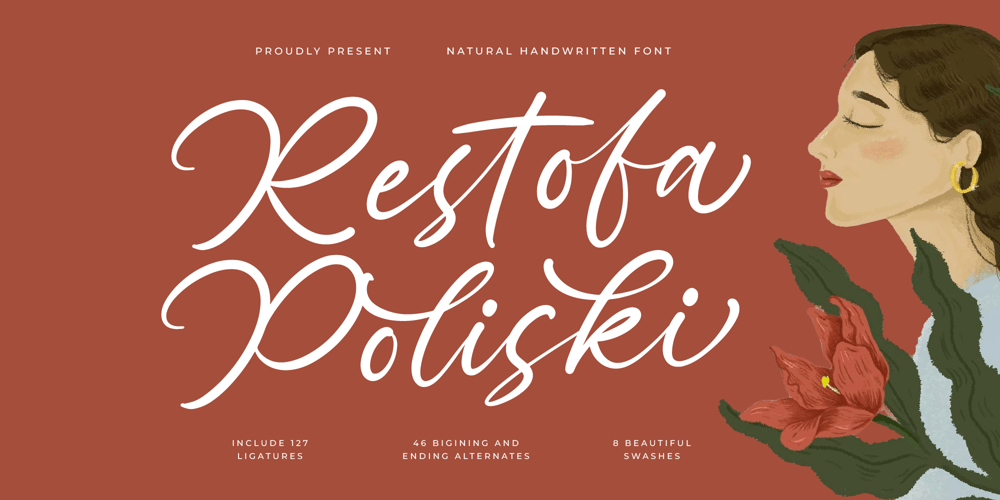
Restofa Poliski Font Family was designed by Heru Utama Putra and published by Stylishtype Studio. Restofa Poliski contains 2 styles and family package options. Restofa Poliski – Natural Handwritten Font , from Stylishtype , Suitable for any projects such as: logos, branding projects, homeware designs, product packaging, mugs, quotes, posters, shopping bags, t-shirts, book covers, name card, invitation cards, greeting cards, label, photography, watermark, special events, and all your other luxury and beautiful projects that need a Luxury Script taste.